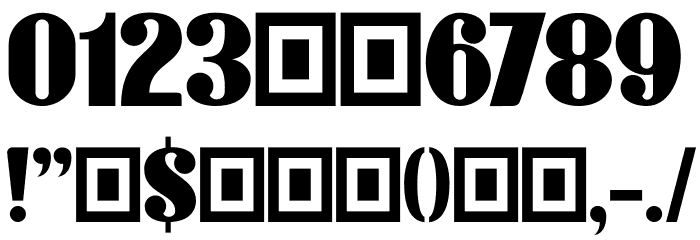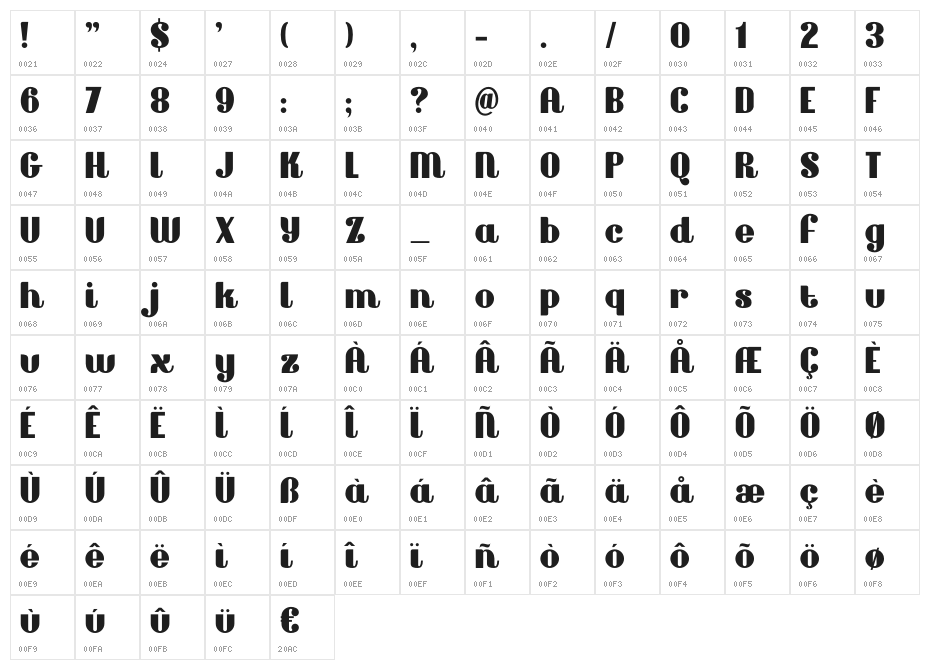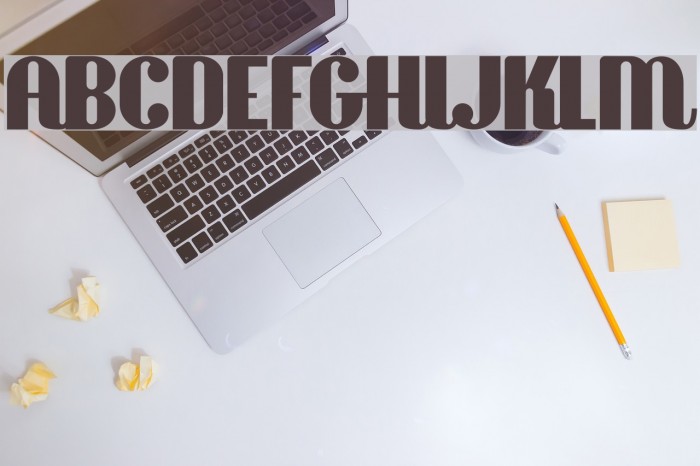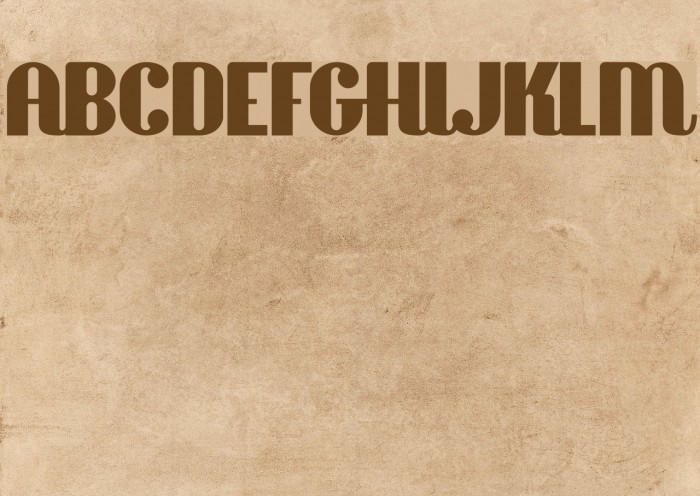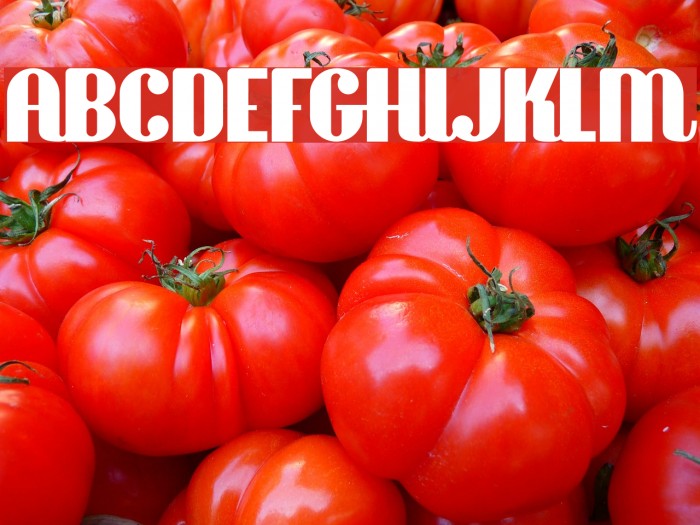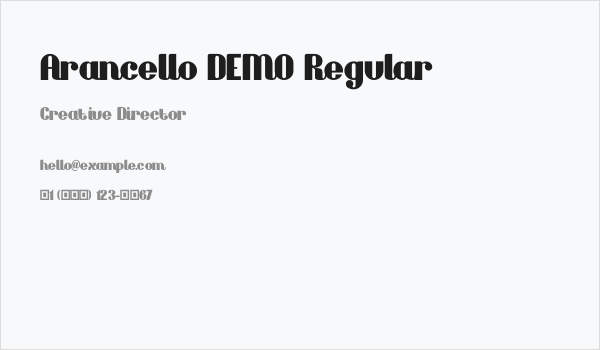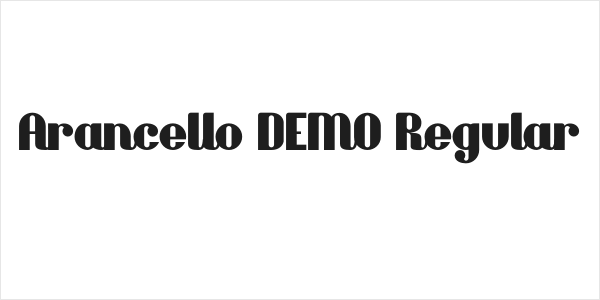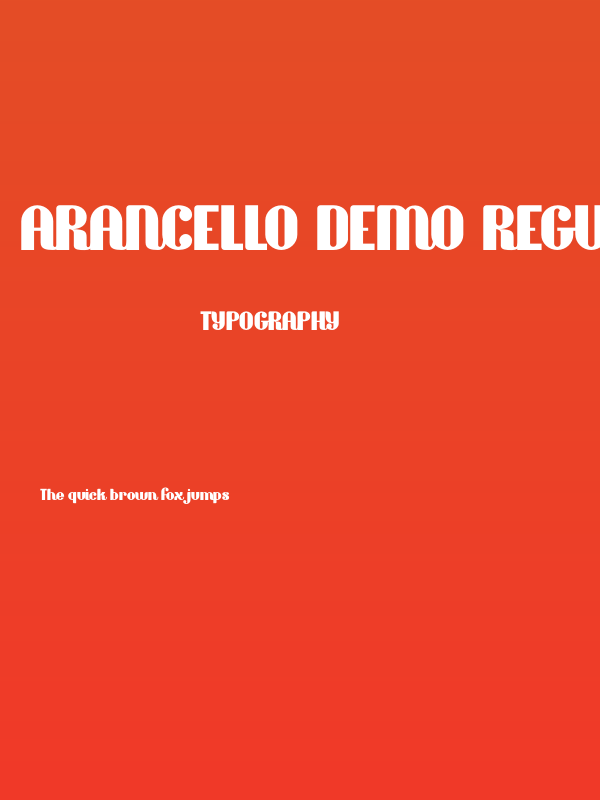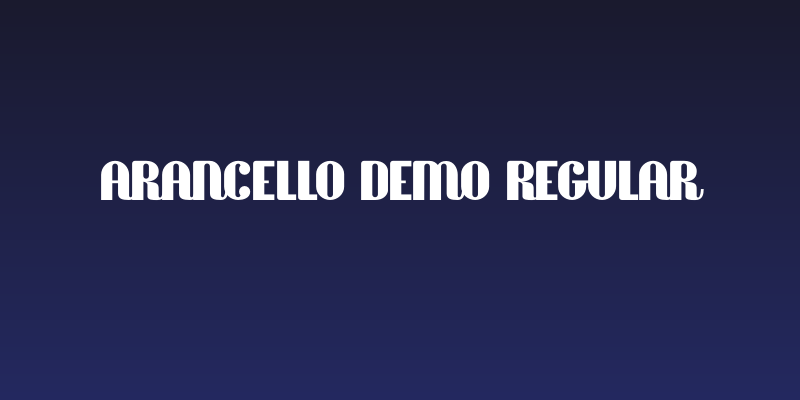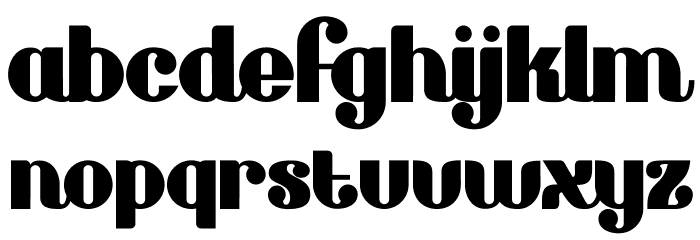
Arancello DEMO Regular Font
Arancello DEMO Regular Description
This font features a bold and playful design with a strong presence. The characters are thick and rounded, giving it a friendly and approachable look. The uppercase letters have a unique style with exaggerated curves and a slight retro feel. The lowercase letters maintain the same boldness, with some characters having distinctive tails and loops. The numbers are equally bold, ensuring they stand out. Special characters are designed to match the overall style, making them cohesive with the rest of the font. This font is ideal for making a statement and capturing attention.
| Overall Style | Retro, Playful |
| Proposed Projects | Perfect for branding, posters, headlines, and any project needing a bold, eye-catching typeface. |